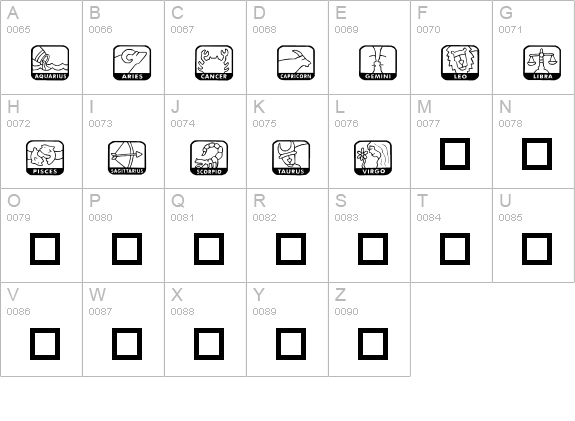
KR Zodiac Dings Font Details
The KR Zodiac Dings font is a whimsical and quirky typeface perfect for adding a touch of cosmic charm to your designs. This font features a collection of zodiac symbols, each intricately designed with a playful twist. From Aries to Pisces, these glyphs will bring a touch of astrological magic to your projects. What makes KR Zodiac Dings even more special is that it is available for free download at FontsMarket.com. This means you can easily incorporate these charming symbols into your creations without any cost. Whether you're creating horoscope-themed designs, celestial illustrations, or simply looking to add a unique touch to your projects, the KR Zodiac Dings font is the perfect choice. Download it today and let your creativity shine with these delightful zodiac symbols.